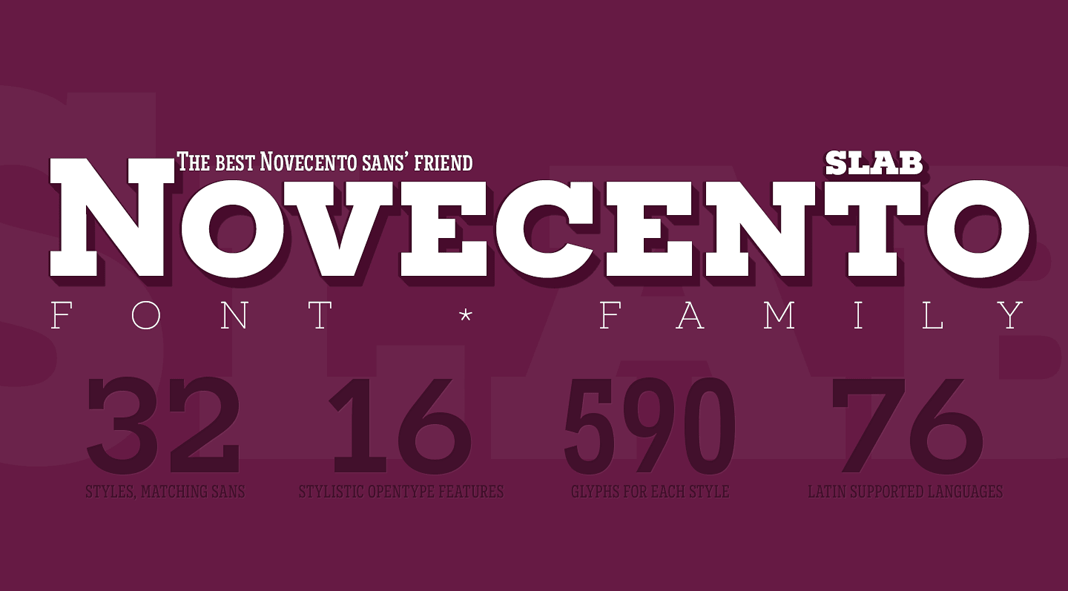
Novecento Slab, a robust slab serif font family from type foundry Synthview.
Novecento Slab is the eye-catching “slab serif” companion of the popular Novecento Sans family, a typeface that draws inspiration from European lettering styles between the second half of the 19th century and the first half of the 20th century. Read more below or click on one of the following links to purchase the family.
The slab serif version was made for headlines, brand identities or short sentences. The family consists of 32 styles in various widths and weights. Furthermore, it supports 76 Latin-based languages and comes with 590 glyphs as well as 16 stylistic OpenType features to give you everything you need for advanced typography. To learn more, just click on one of the following links.